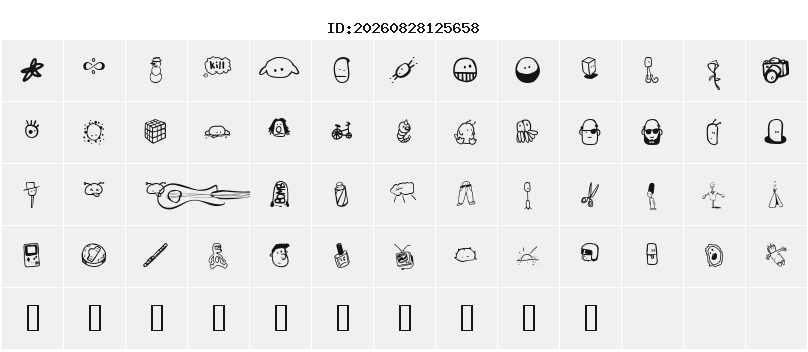
Tombats 6 Preview
• Font Name: Tombats 6
• Designer: Tom Murphy 7
• Manufacturer: [ Divide By Zero ] Fonts
• Description: Created by Tom Murphy 7. The 6th Tombats font. No theme here, just fun tombats! [Divide By Zero] fonts: http://fonts.tom7.com/
About Tombats 6.ttf